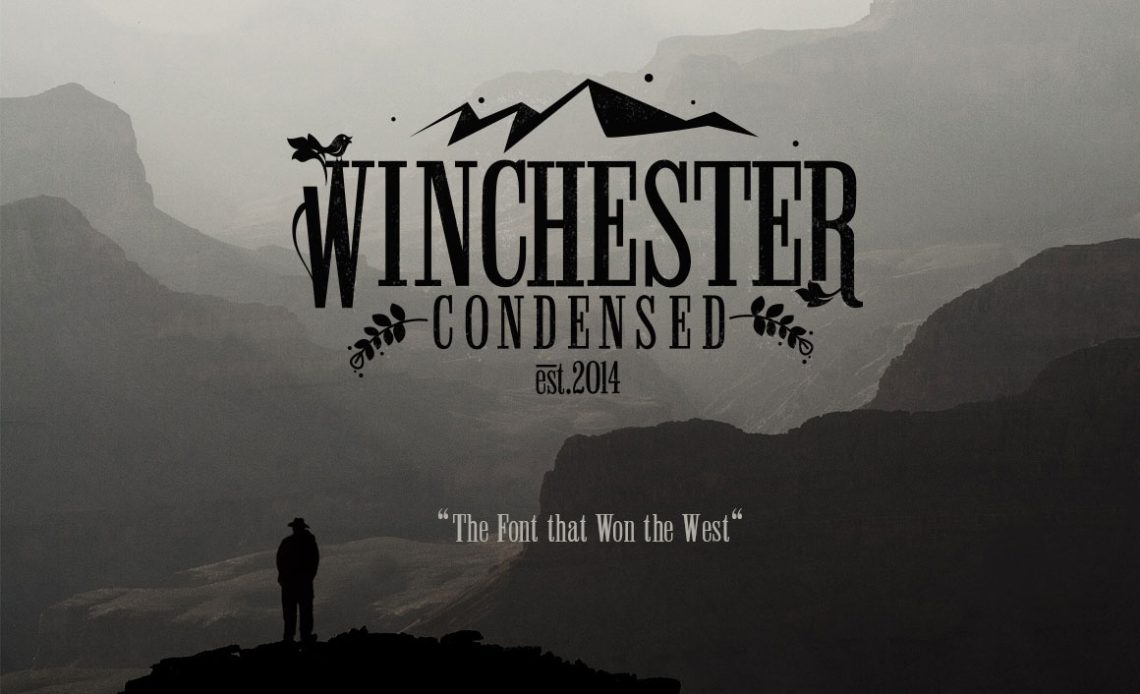
Introducing Winchester Condensed Font, the epitome of timeless elegance and vintage charm. Crafted with utmost precision by DesignSomething, this stunning Slab Serif font effortlessly captures the essence of old typography, making it a must-have for any design enthusiast.
With its four captivating sets, Winchester Condensed offers a world of possibilities to elevate your creative projects. Let's explore each set and discover why this font is the perfect choice for your next design endeavor.
First up, we have Winchester Condensed Regular. This set exudes a sense of classic sophistication, with its clean lines and balanced proportions. Whether you're designing a logo, a magazine layout, or a website, this font will lend a touch of professionalism and refinement to your project.
Next, we have Winchester Condensed Tall Caps. Imagine towering headlines that command attention and instantly captivate your audience. With its elongated letterforms, this set is perfect for making a bold statement and adding a touch of grandeur to your designs.
Looking for something edgier? Winchester Condensed Cuts Caps is the answer. This set boasts sharp, angular cuts that infuse your text with a contemporary and dynamic vibe. Stand out from the crowd and let your words leave a lasting impression with this striking font.
For those seeking a touch of ornate beauty, Winchester Condensed Ornate Caps is the ultimate choice. Embellished with intricate details and decorative elements, this set adds a touch of vintage elegance to any design. Perfect for wedding invitations, certificates, or any project that calls for a touch of old-world charm.
But Winchester Condensed Font is not just about aesthetics; it's also about functionality. With its extensive character set and multilingual support, this font ensures that your message reaches a global audience. From English to Spanish, from French to German, Winchester Condensed has you covered.